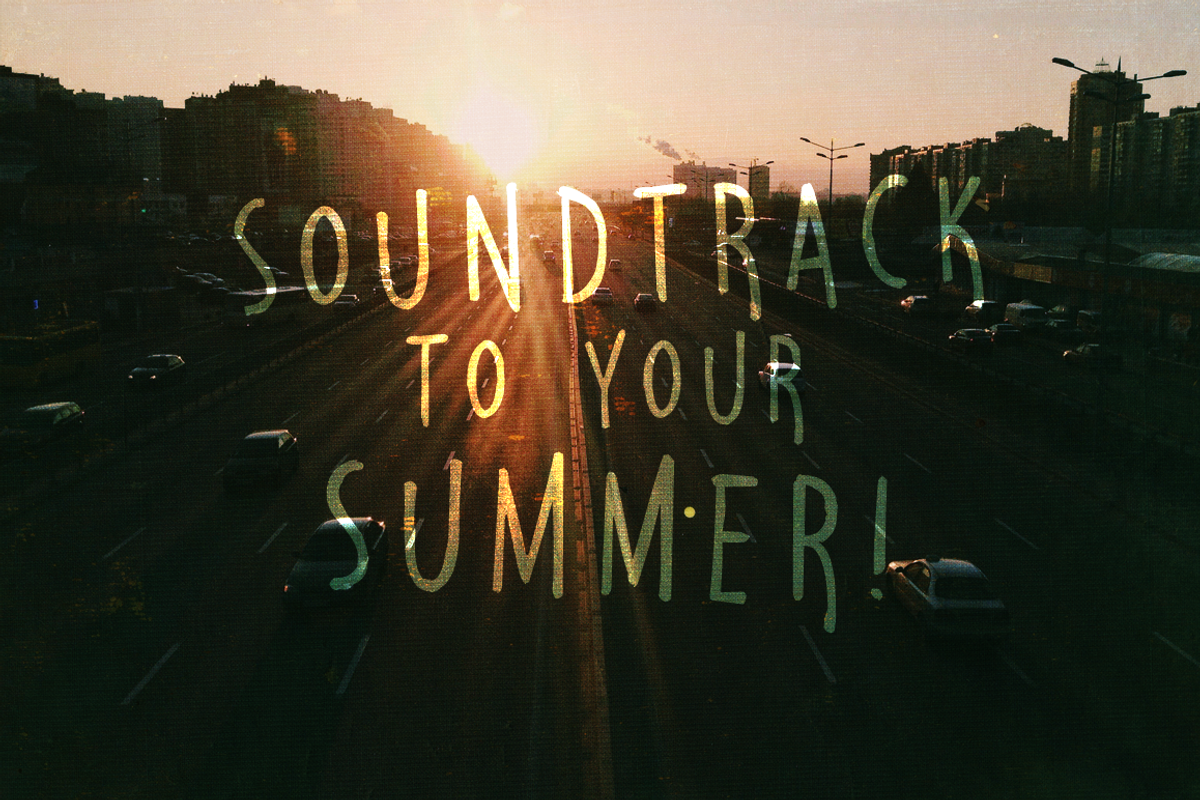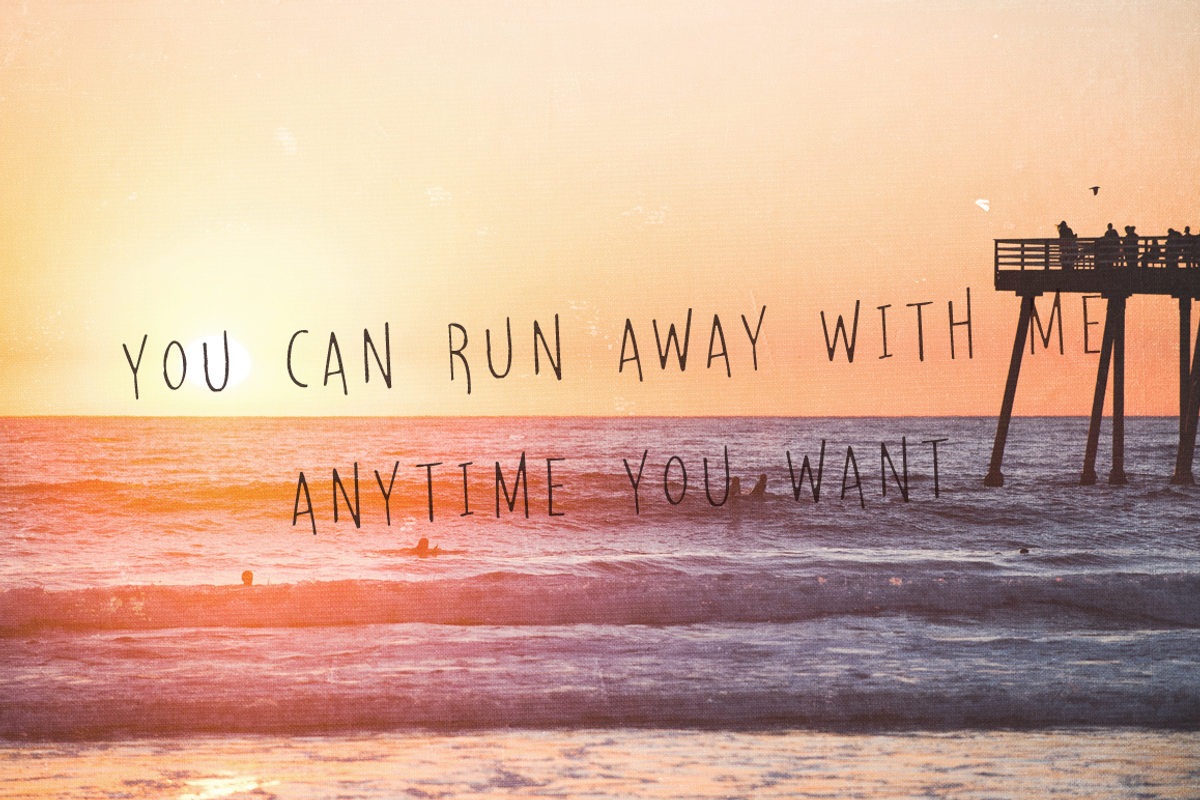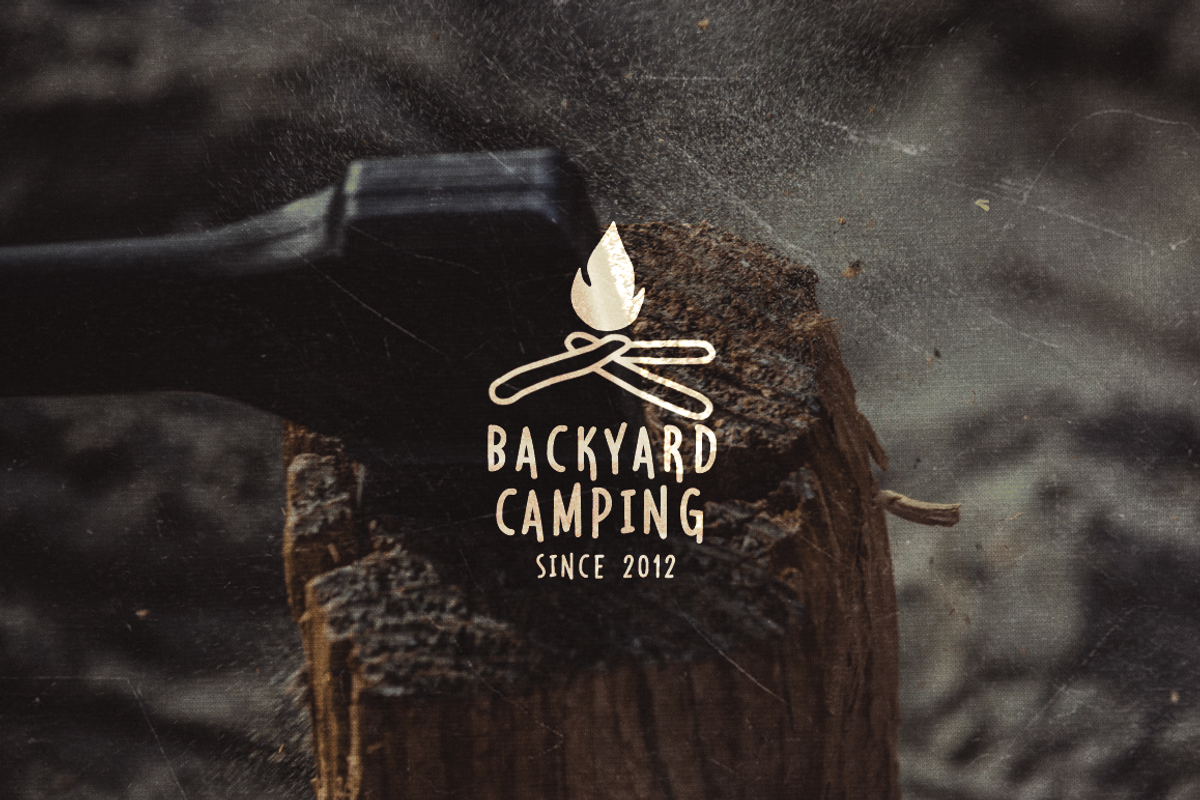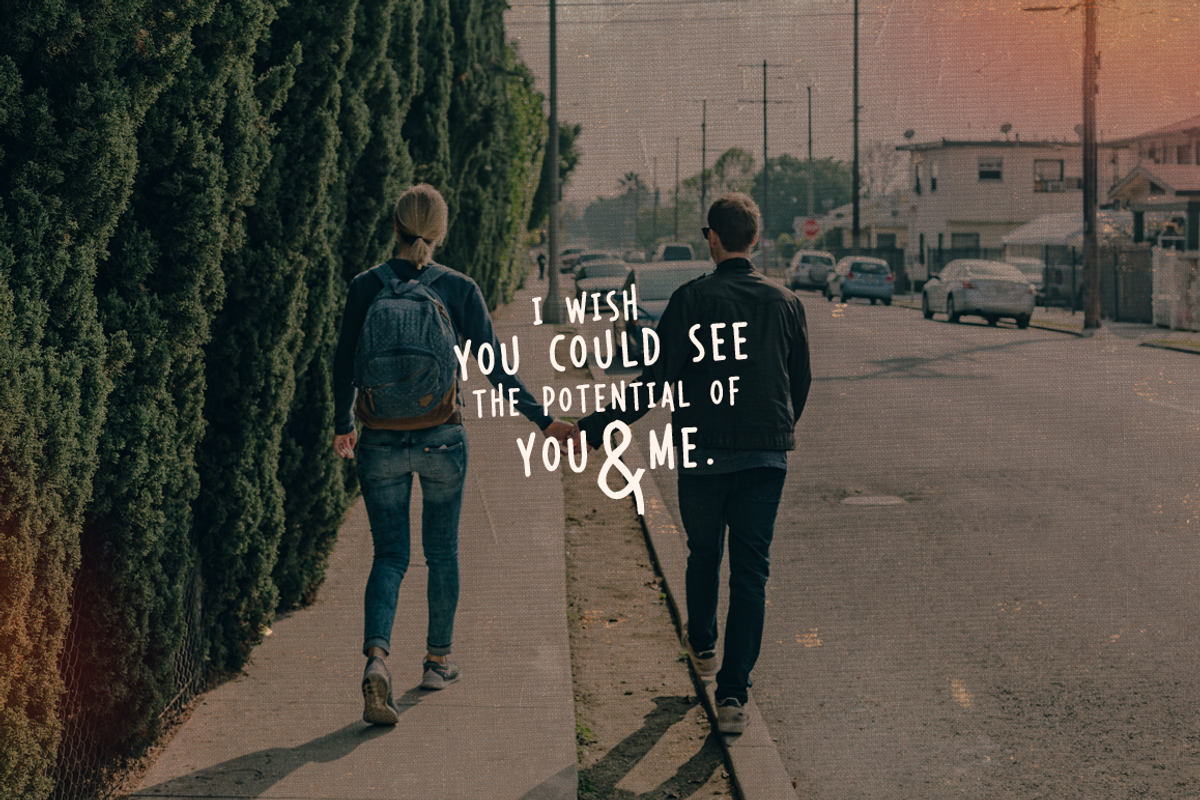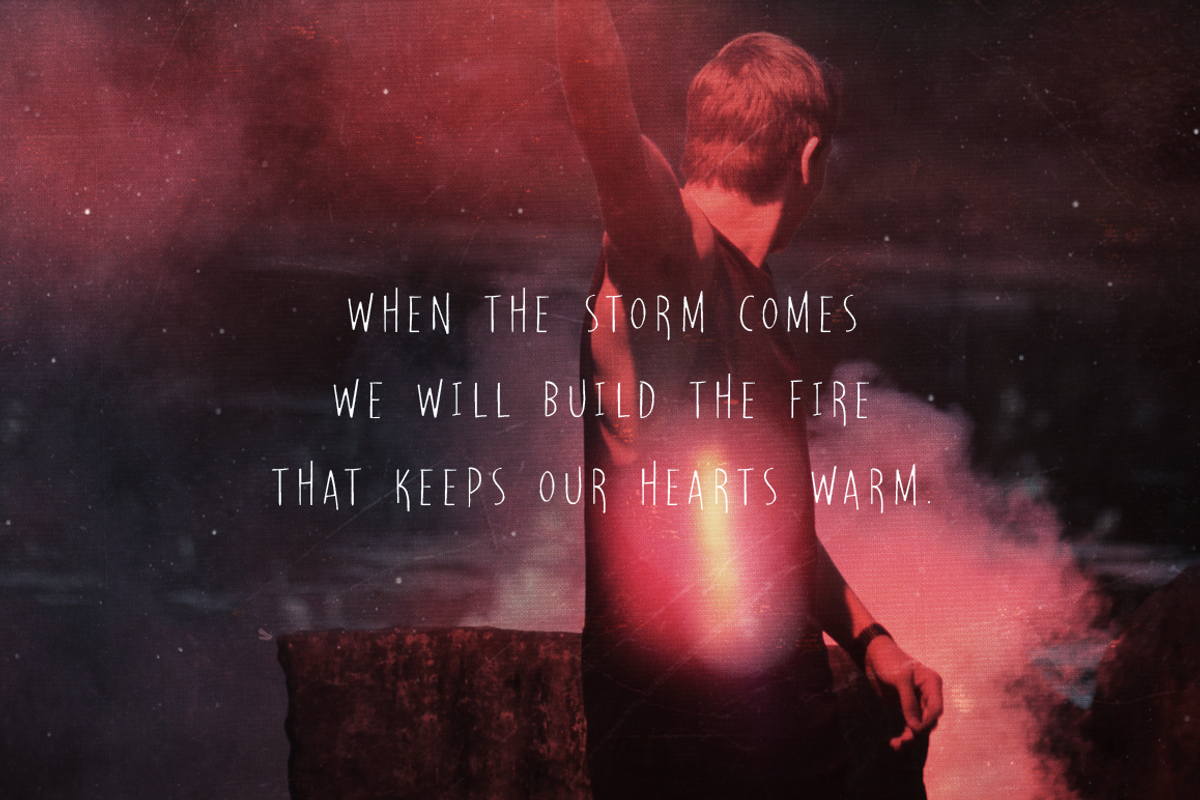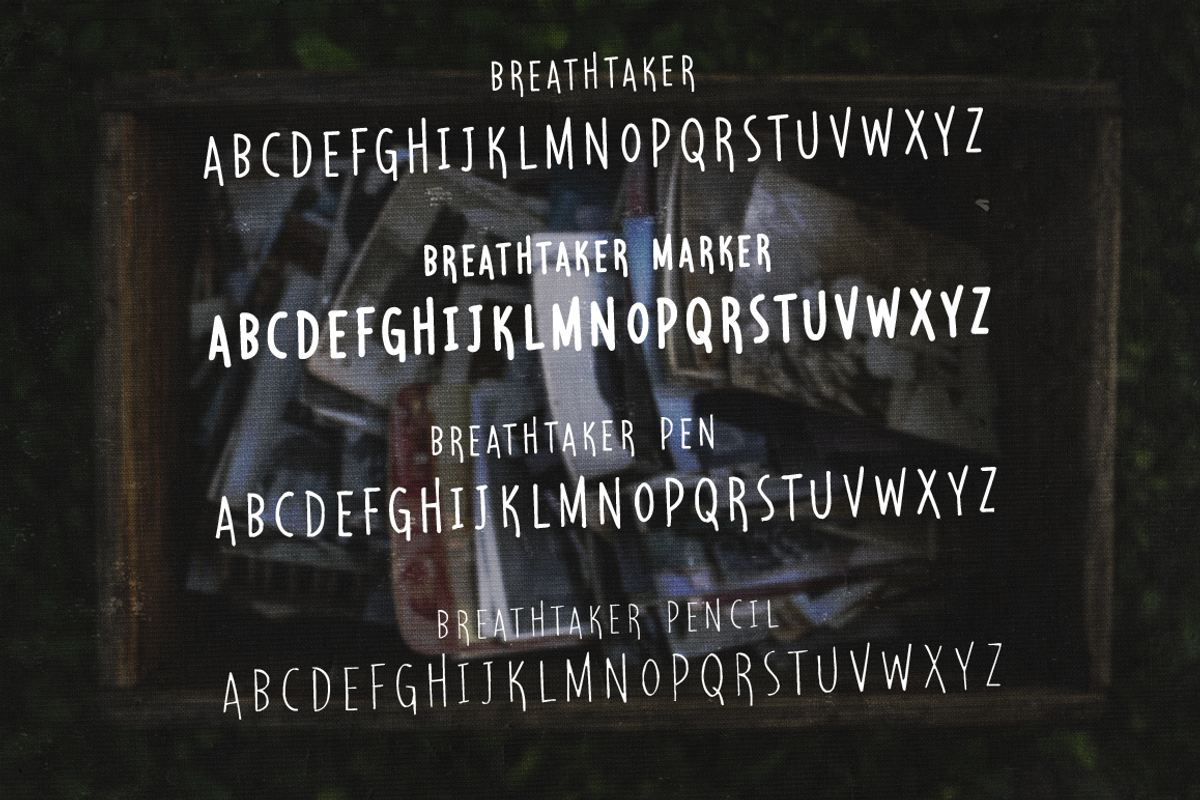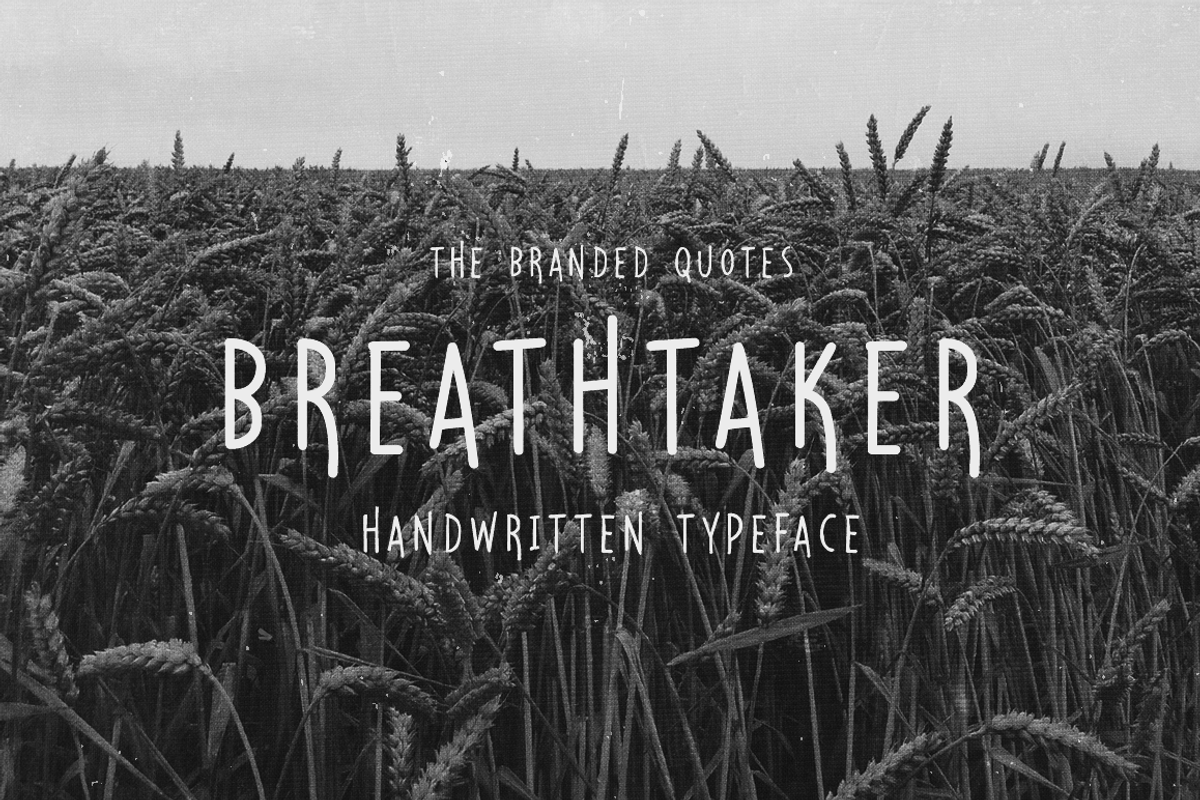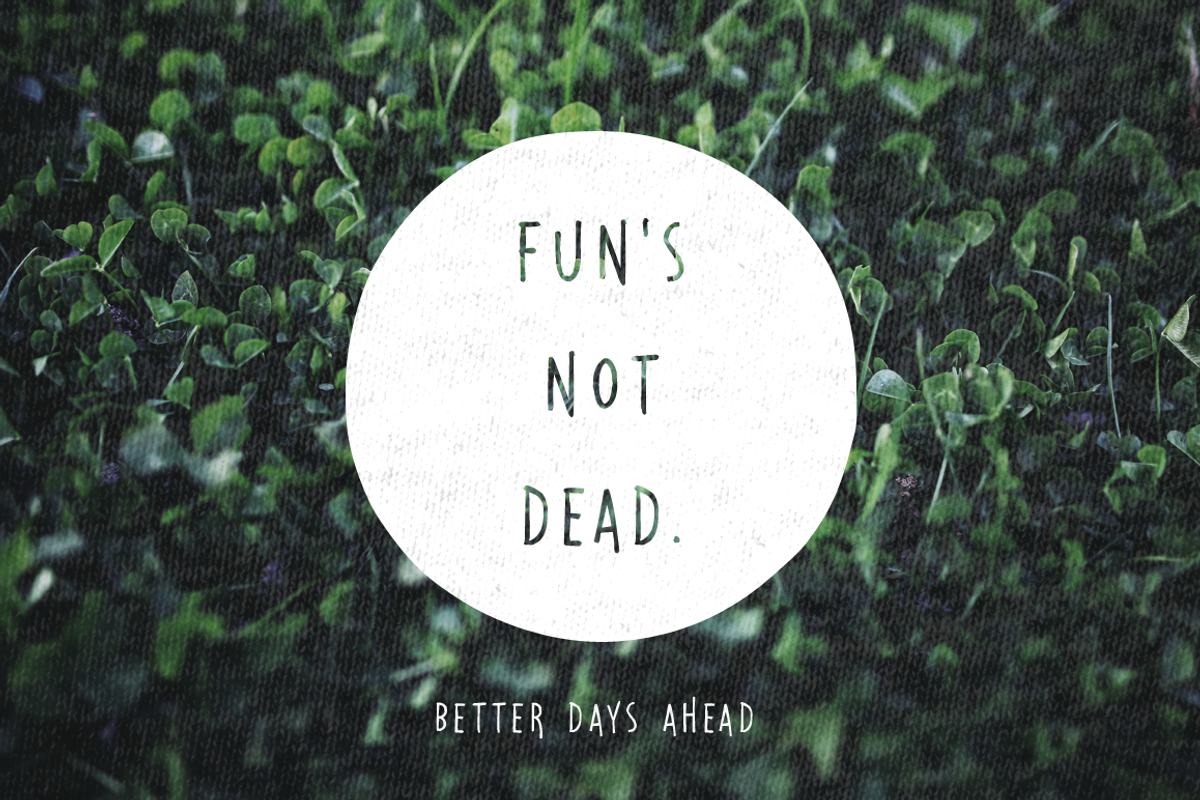
Breathtaker Typeface
Breathtaker Typeface by The Branded Quotes is a font selected for branding, posters, packaging, typography.
- Includes: Breathtaker - the regular and clean version from the font set.
- Breathtaker Regular
- Breathtaker Marker Regular
- Breathtaker Pen Regular
- Breathtaker Pencil Regular
Why Breathtaker Typeface is worth a look
Breathtaker Typeface by The Branded Quotes fits naturally into Branding, posters, packaging, typography.